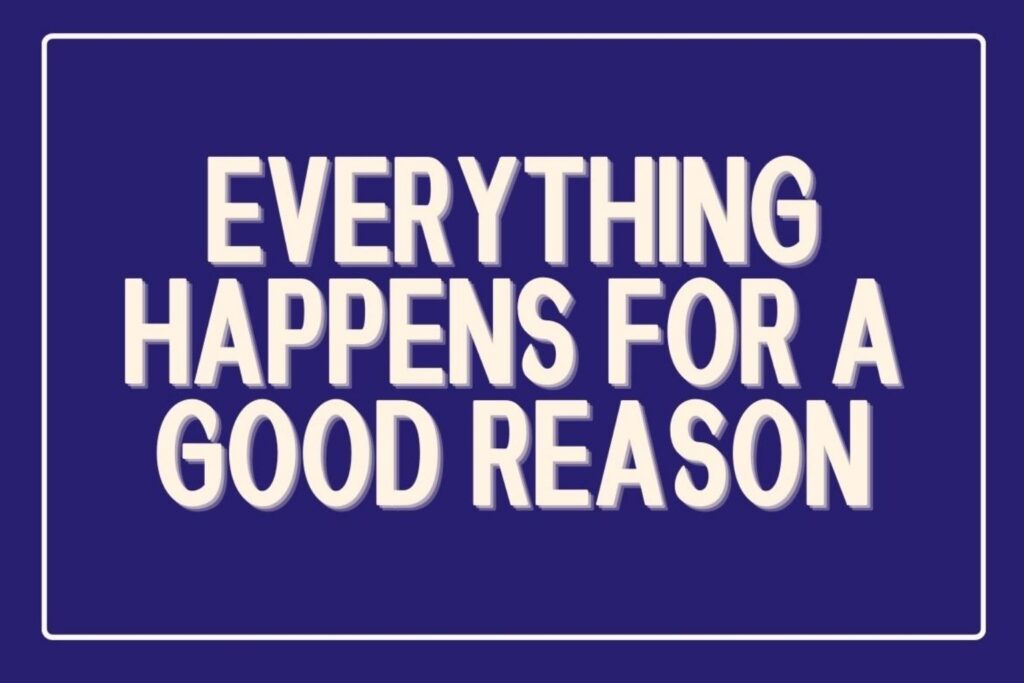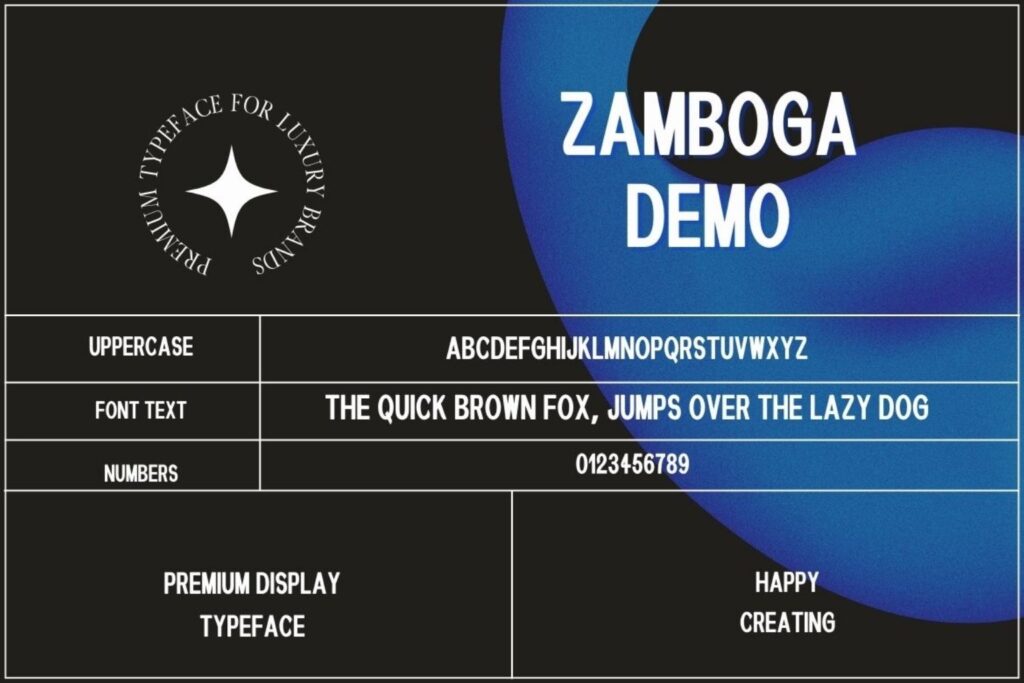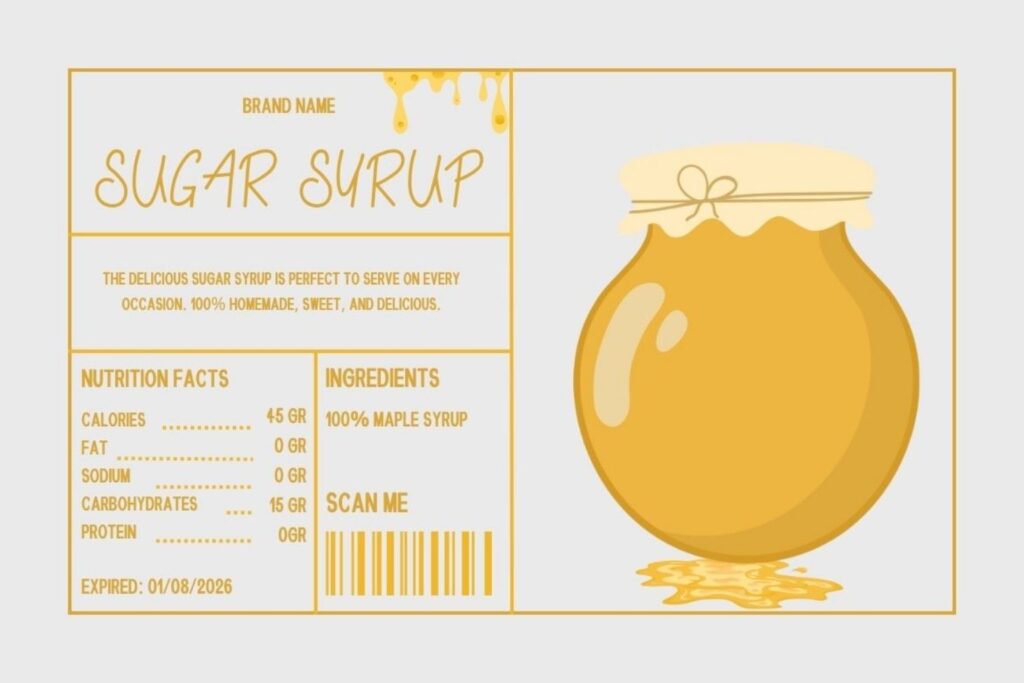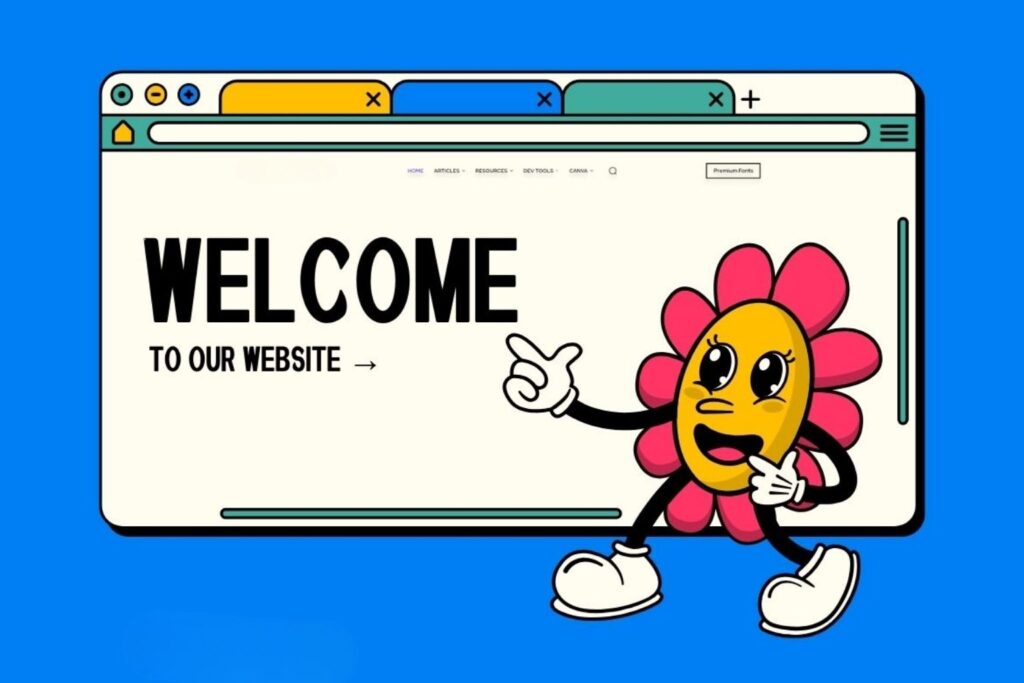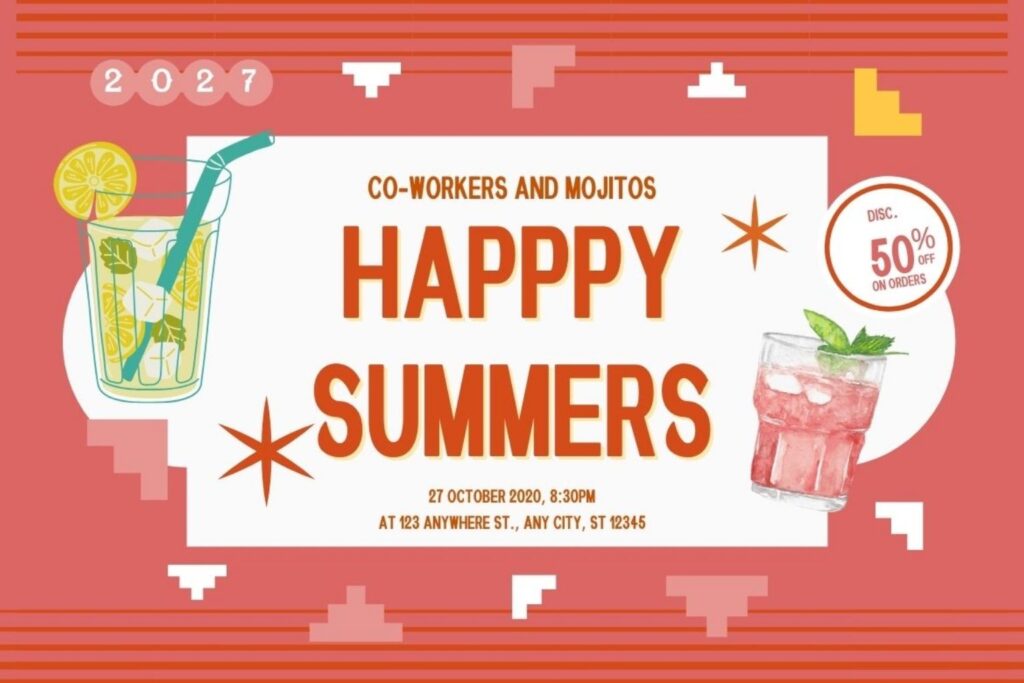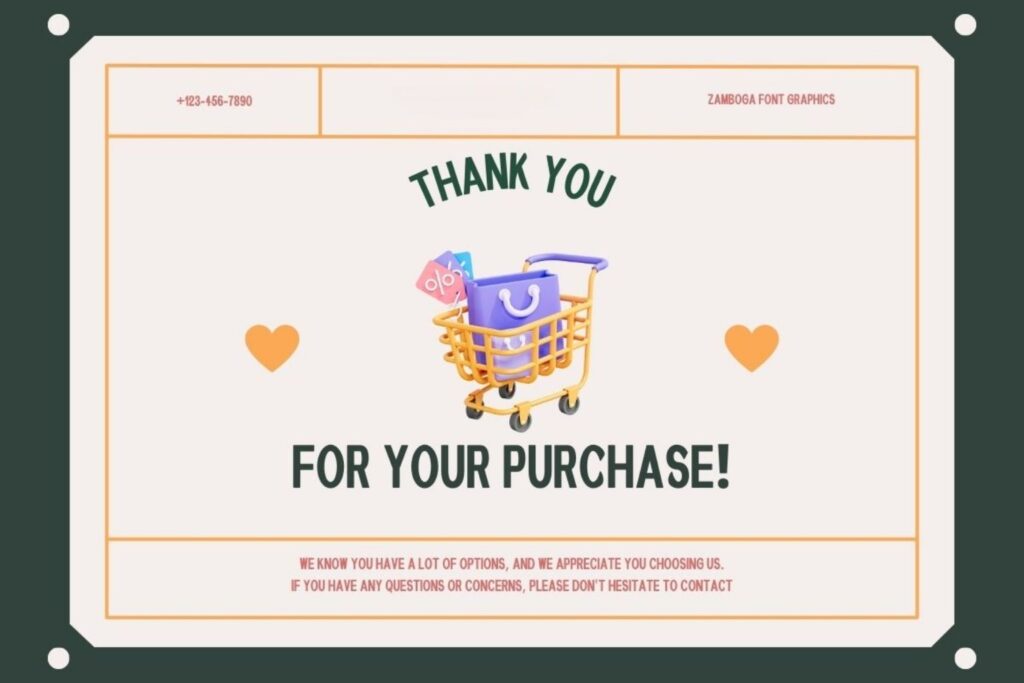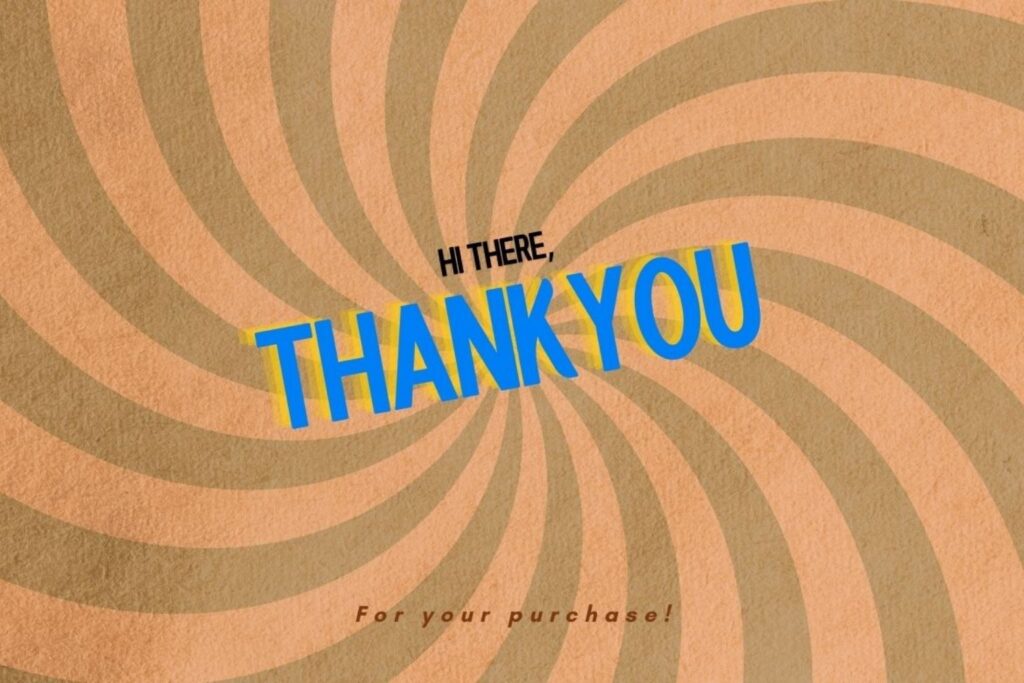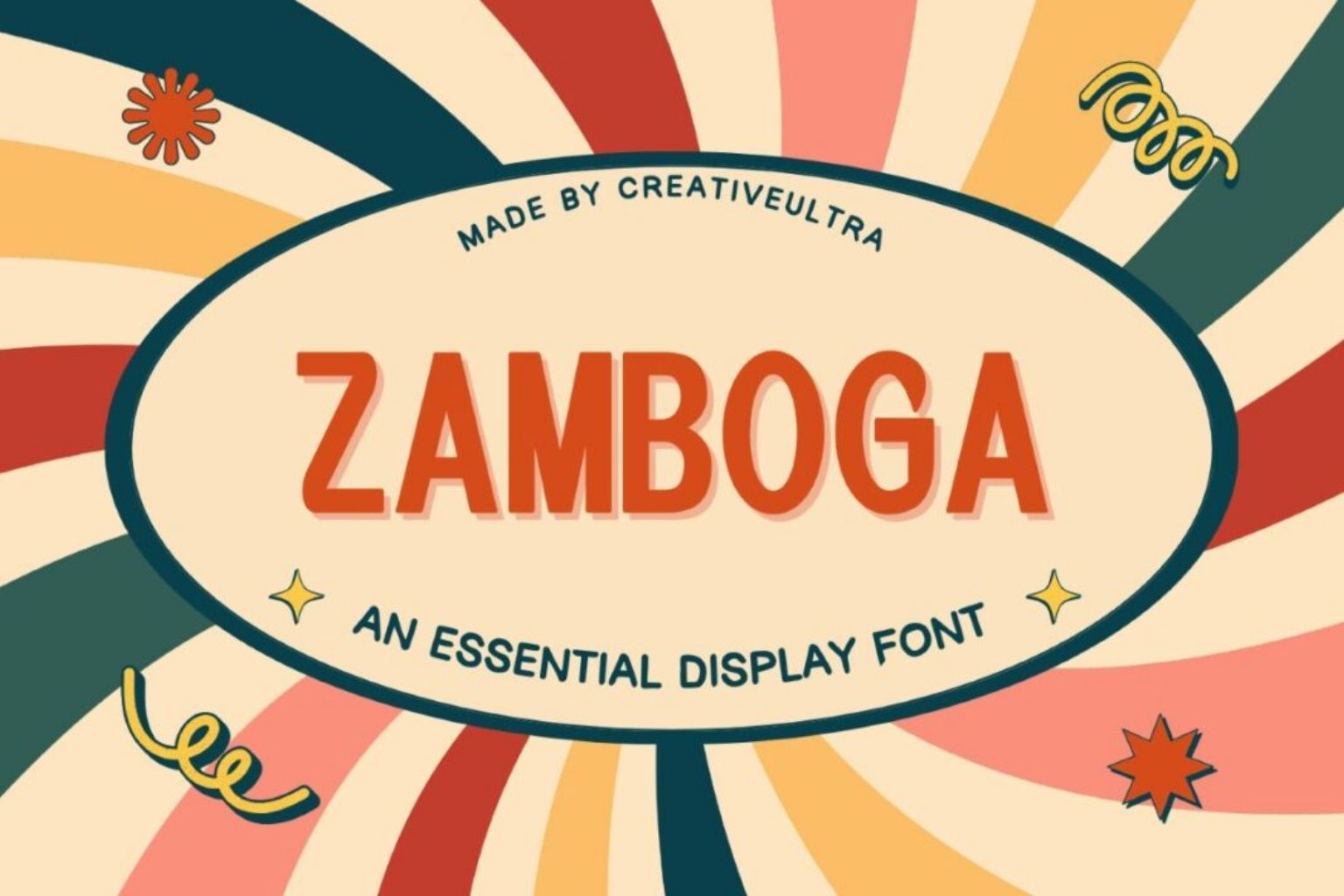
Zamboga Display Font
Introducing Zamboga Display Font, a bold and dynamic typeface that is perfect for making a statement. With its eye-catching design, Zamboga is ideal for a variety of display products, including posters, banners, labels, and more.
This font includes uppercase letters and numbers, allowing for versatile usage across different projects.
Font Features:
- Uppercase Letters: All-caps design that stands out and grabs attention.
- Numbers: Complete set of numerals to complement your text.
- Bold and Clear: Perfect for headlines, titles, and any text that needs to be noticed.
- Versatile Usage: Ideal for posters, product labels, advertisements, and more.
This font brings a modern and clean aesthetic to your designs, ensuring your message is conveyed with impact. Whether you’re creating promotional materials, designing for print or digital, or crafting eye-catching graphics, Zamboga provides the perfect typographic solution.
Make your designs unforgettable with Zamboga Display Font. Happy creating!